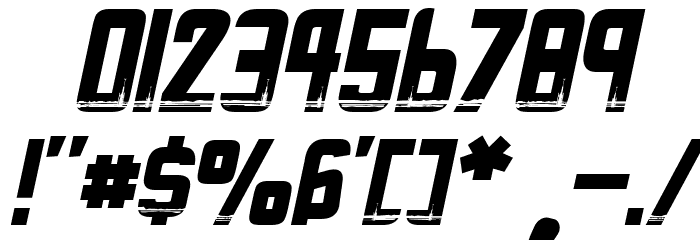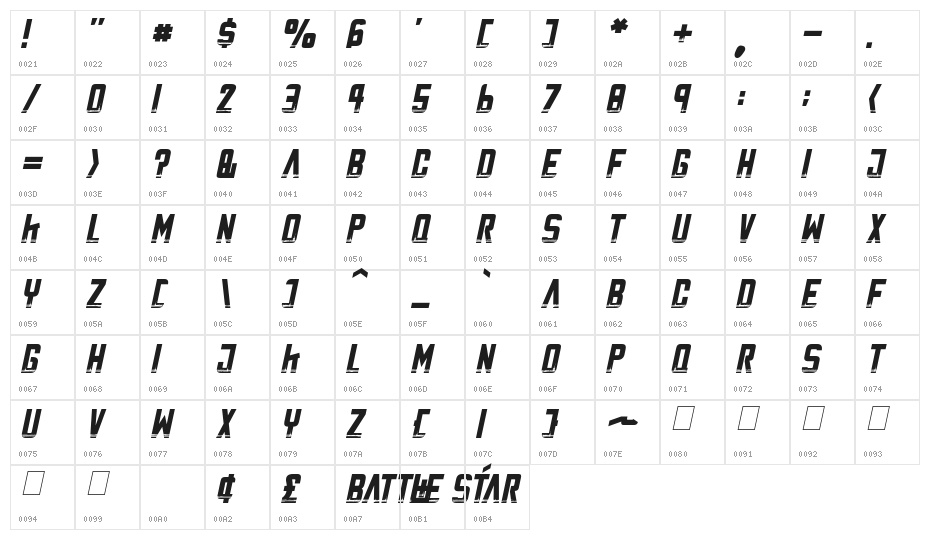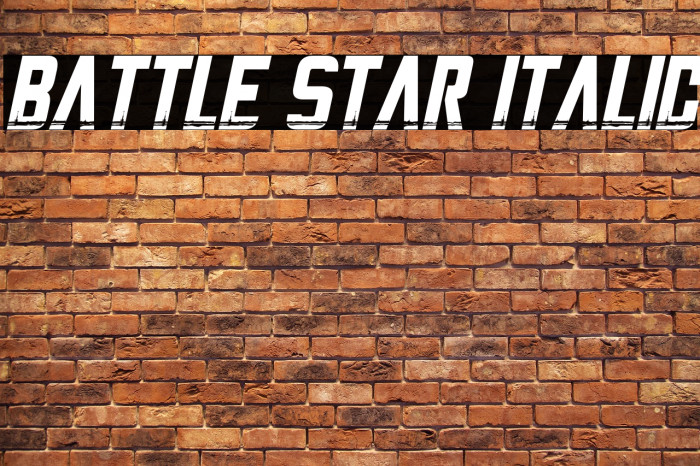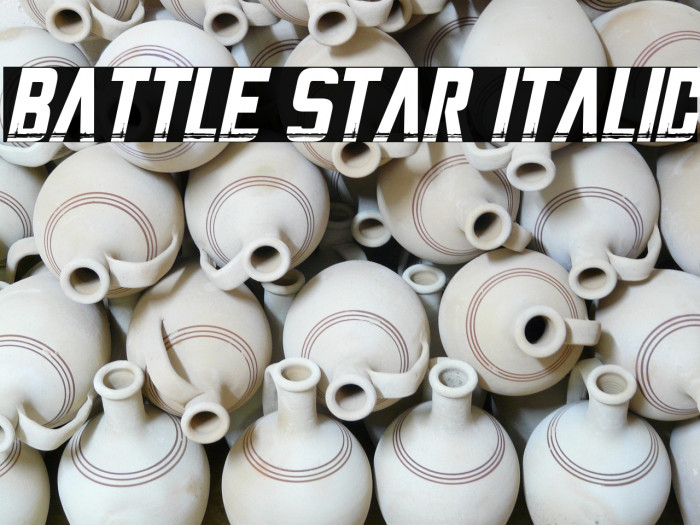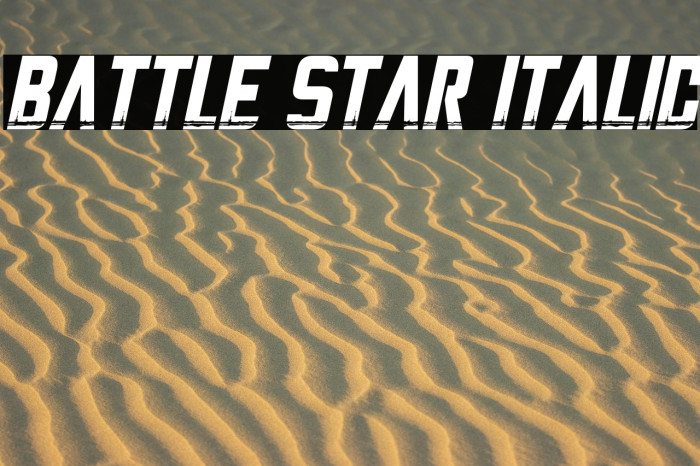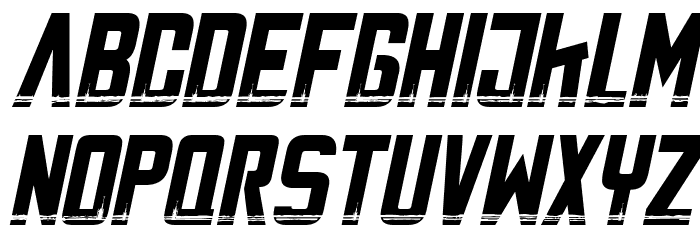
Battle Star Italic Font
Battle Star Italic Description
This font features a bold and dynamic style with a futuristic and edgy appearance. The characters are italicized, giving a sense of motion and speed. The strokes are thick and consistent, with a slight slant that enhances the aggressive and modern look. The uppercase and lowercase letters maintain a uniform height, contributing to a cohesive and structured design. The numerals and special characters are crafted with the same boldness and angularity, ensuring a seamless integration across different uses. The overall aesthetic is reminiscent of science fiction and action themes, making it ideal for projects that require a strong and impactful visual presence.